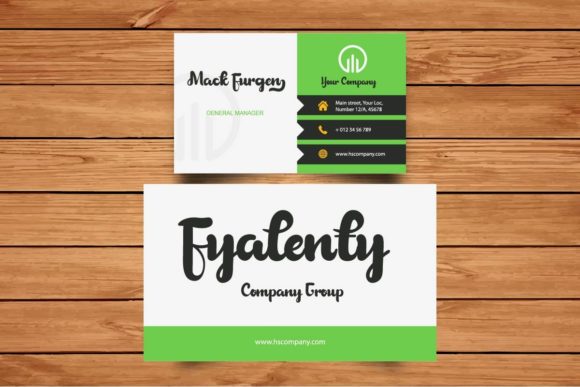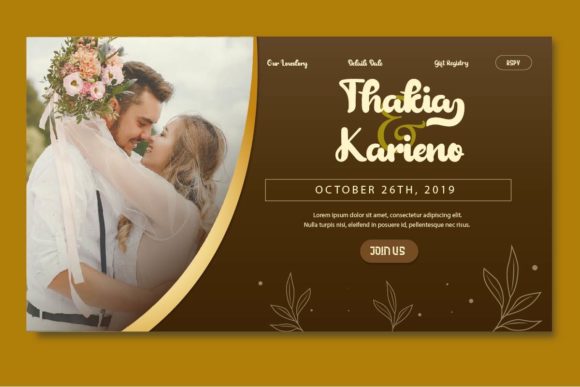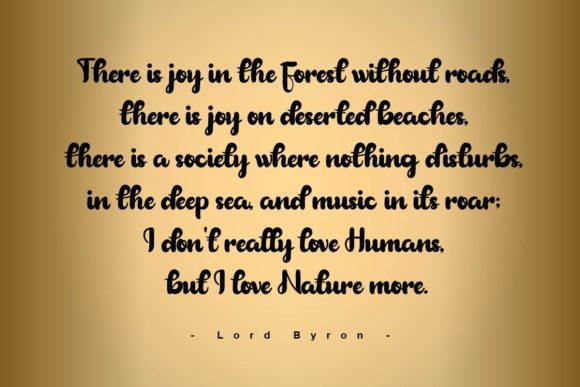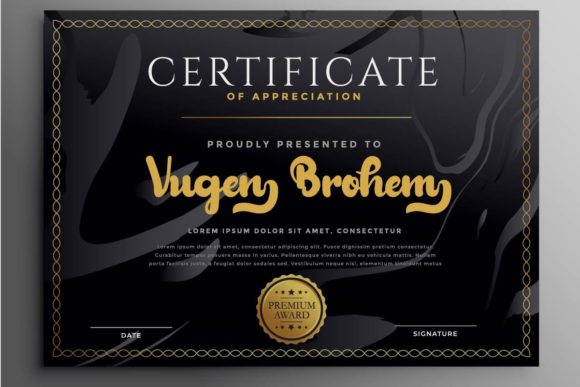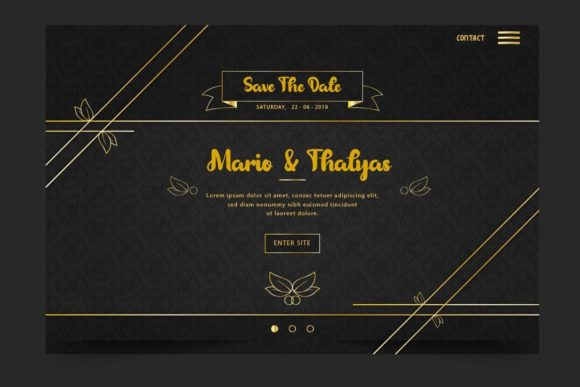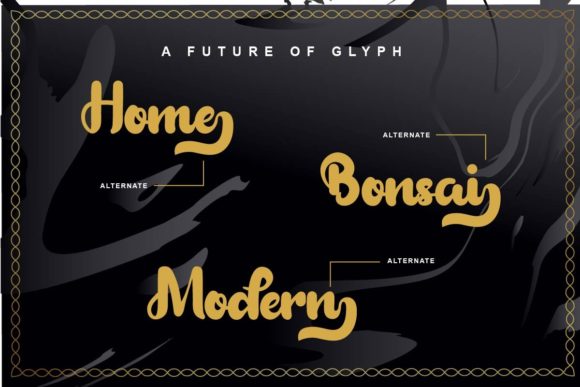
The Designer’s Delight: Furgaski Font
Have you ever been in the middle of a design project, and suddenly, you’re stuck on finding the perfect font? I recall a recent experience where I was working on a branding project for a boutique client, and I just couldn’t find a font that captured the essence of their elegant yet playful vibe. That’s when I stumbled upon the gorgeous Furgaski Font. This beautifully curved handwritten font has an attractive style and a soft, original touch that instantly won me over.
An Honest Review of Furgaski Font
So, what makes Furgaski Font so special? Let’s dive into the good stuff and a few quirks I’ve discovered.
- ✨ Elegant and smooth curves that give it a luxurious feel
- 💫 Versatile and adaptable to various design projects, from branding to invitations
- 🎨 A range of OpenType features, glyphs, and stylistic alternates to enhance creativity
While Furgaski Font is exceptional, there are a few things to keep in mind:
- ⚠️ It may not be the best choice for very long texts or body content, as it’s more suited for headlines and titles
- 🤔 Some users might find the font a bit too delicate for certain design contexts
The Backstory of Furgaski Font
Furgaski Font was crafted with love and attention to detail by a talented designer who aimed to create a font that exudes elegance and softness. The designer’s inspiration came from traditional handwritten scripts, blended with a modern touch to make it versatile for contemporary designs. Though the exact story behind Furgaski Font might be shrouded in mystery, its beauty and functionality speak volumes about its creator’s skill and passion.
Q: Is Furgaski Font suitable for body text?
A: While Furgaski Font is highly legible, it’s primarily designed for titles and headings. For longer texts, you might prefer a font that’s specifically designed for readability in larger blocks of text.
Q: Does Furgaski Font support multiple languages?
| Font Name | Furgaski Font |